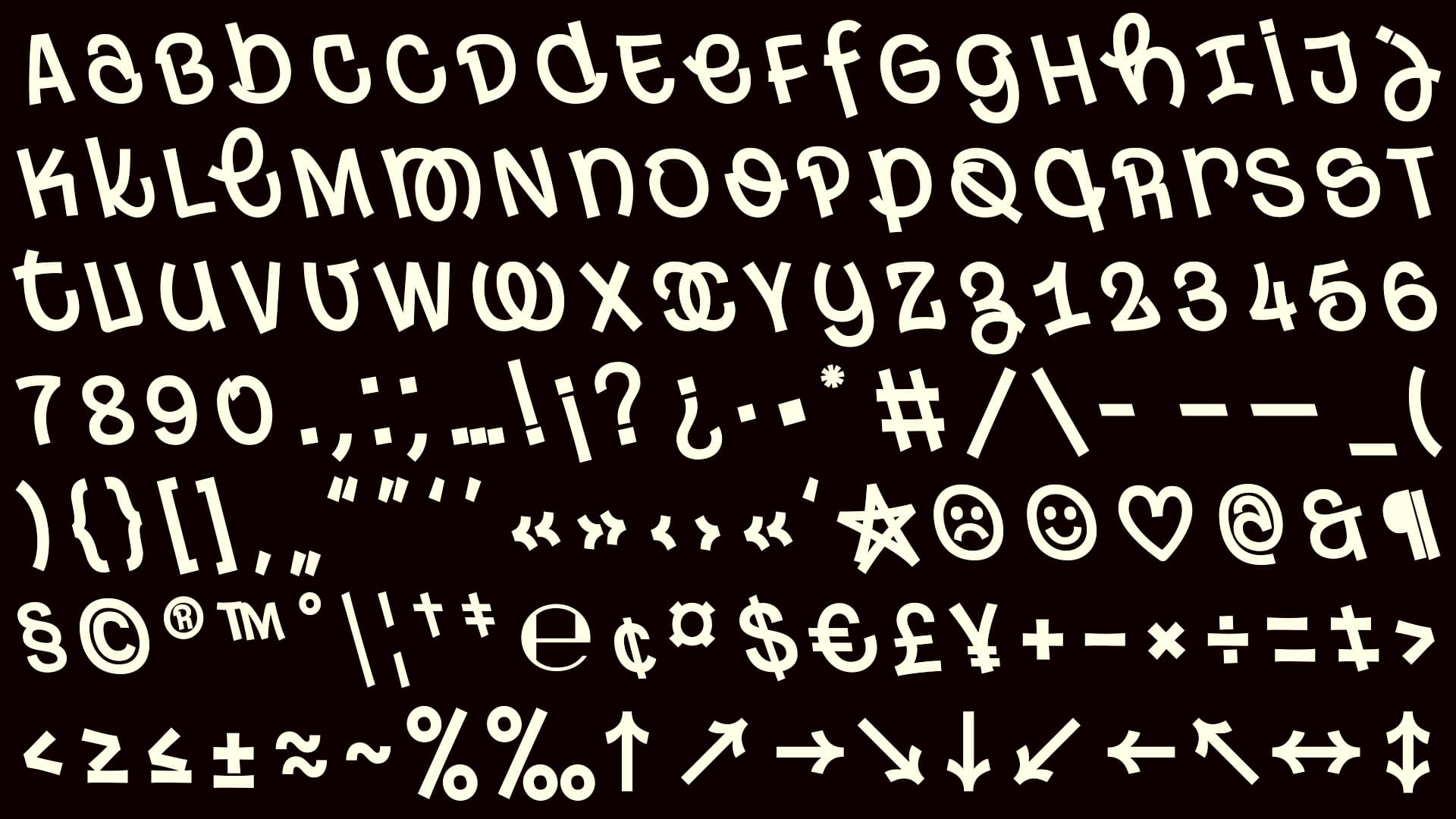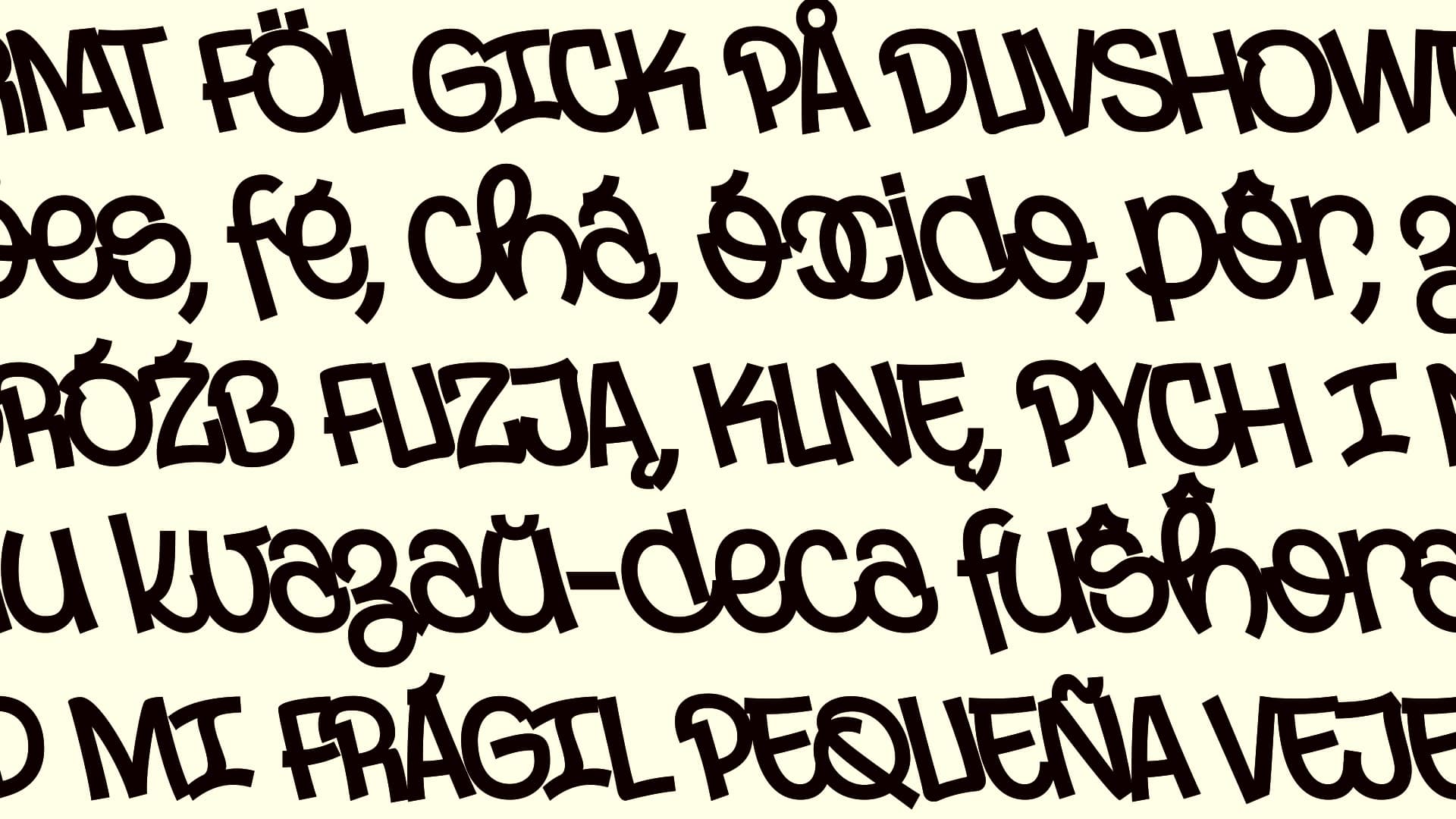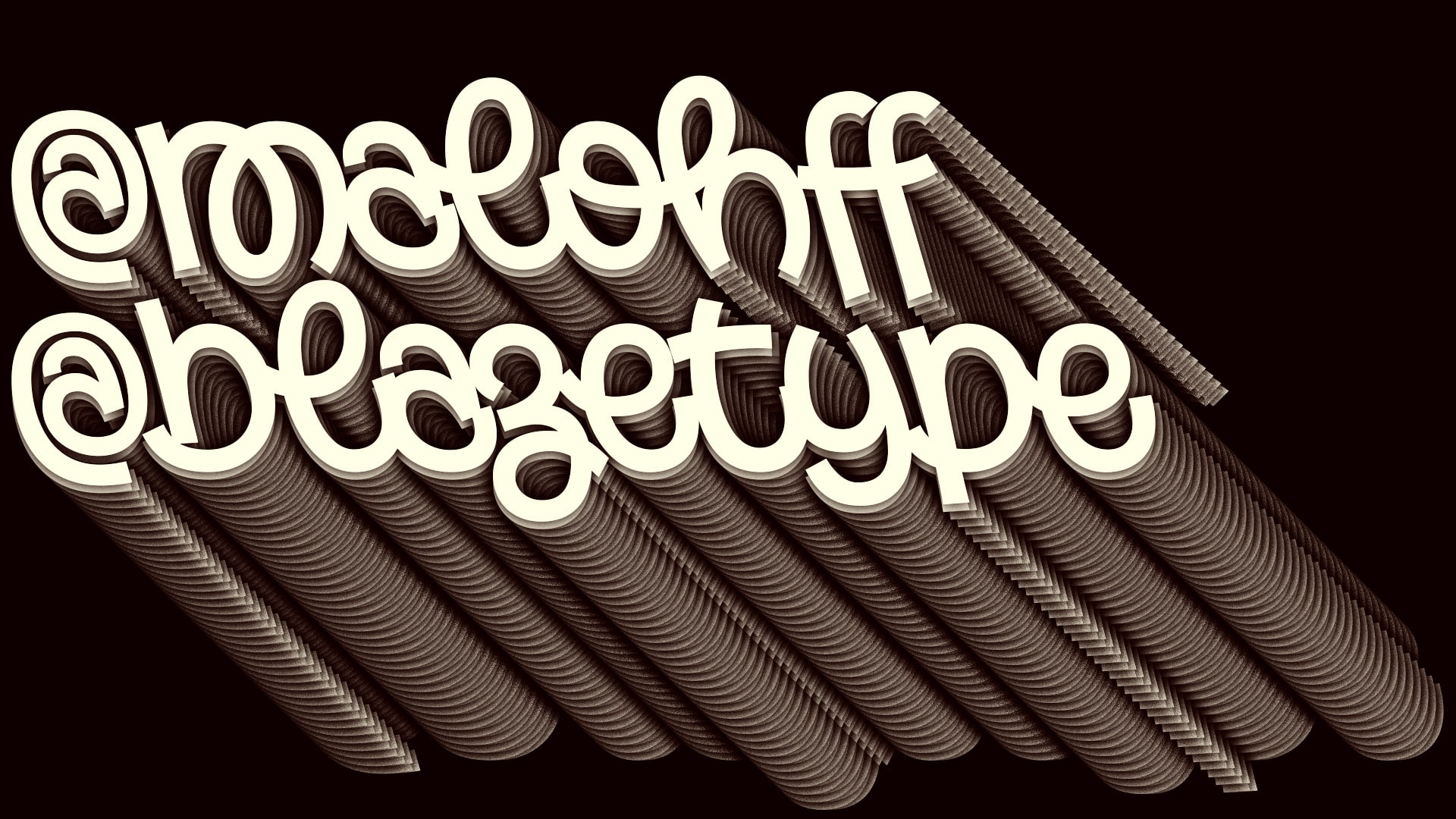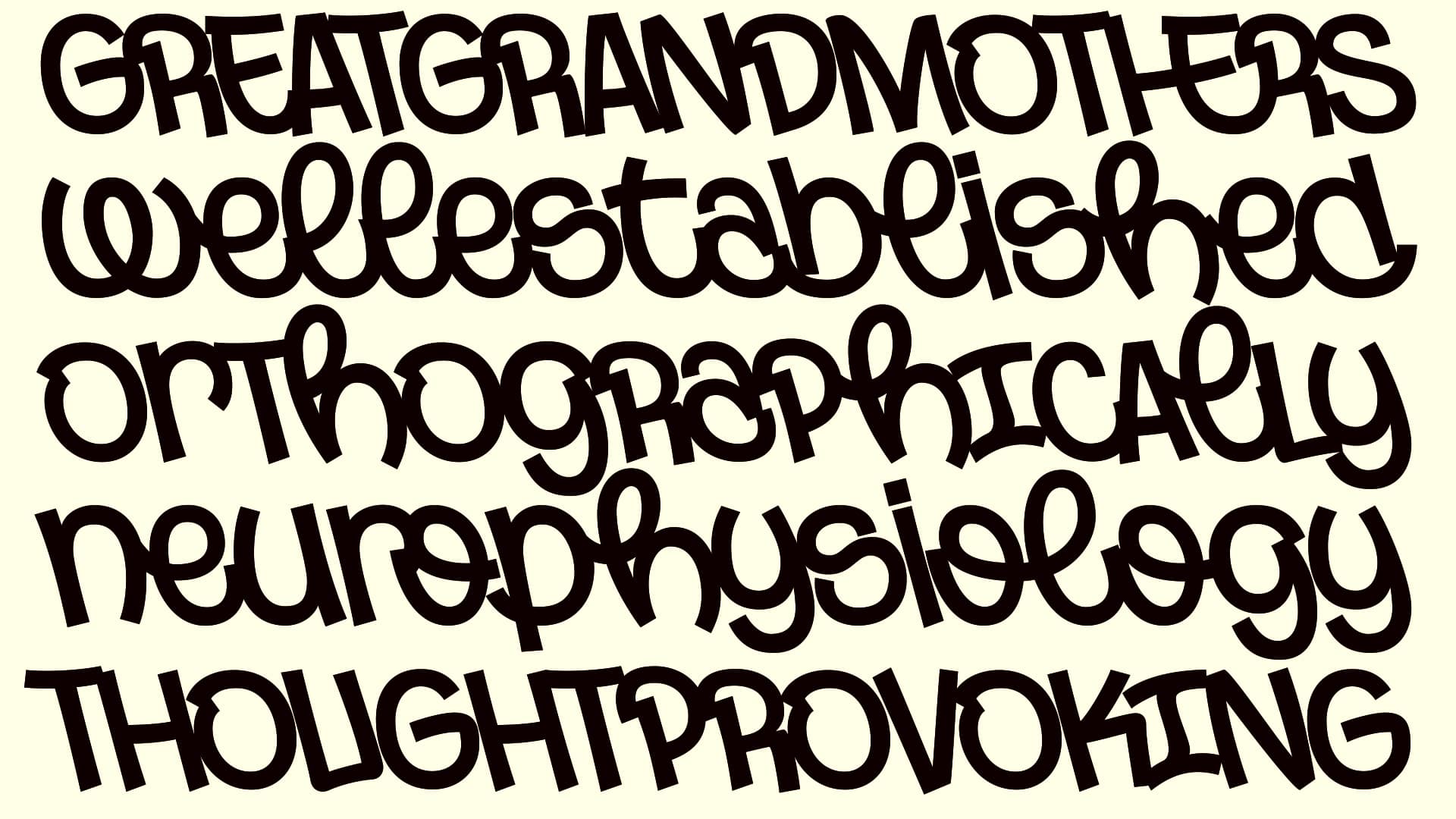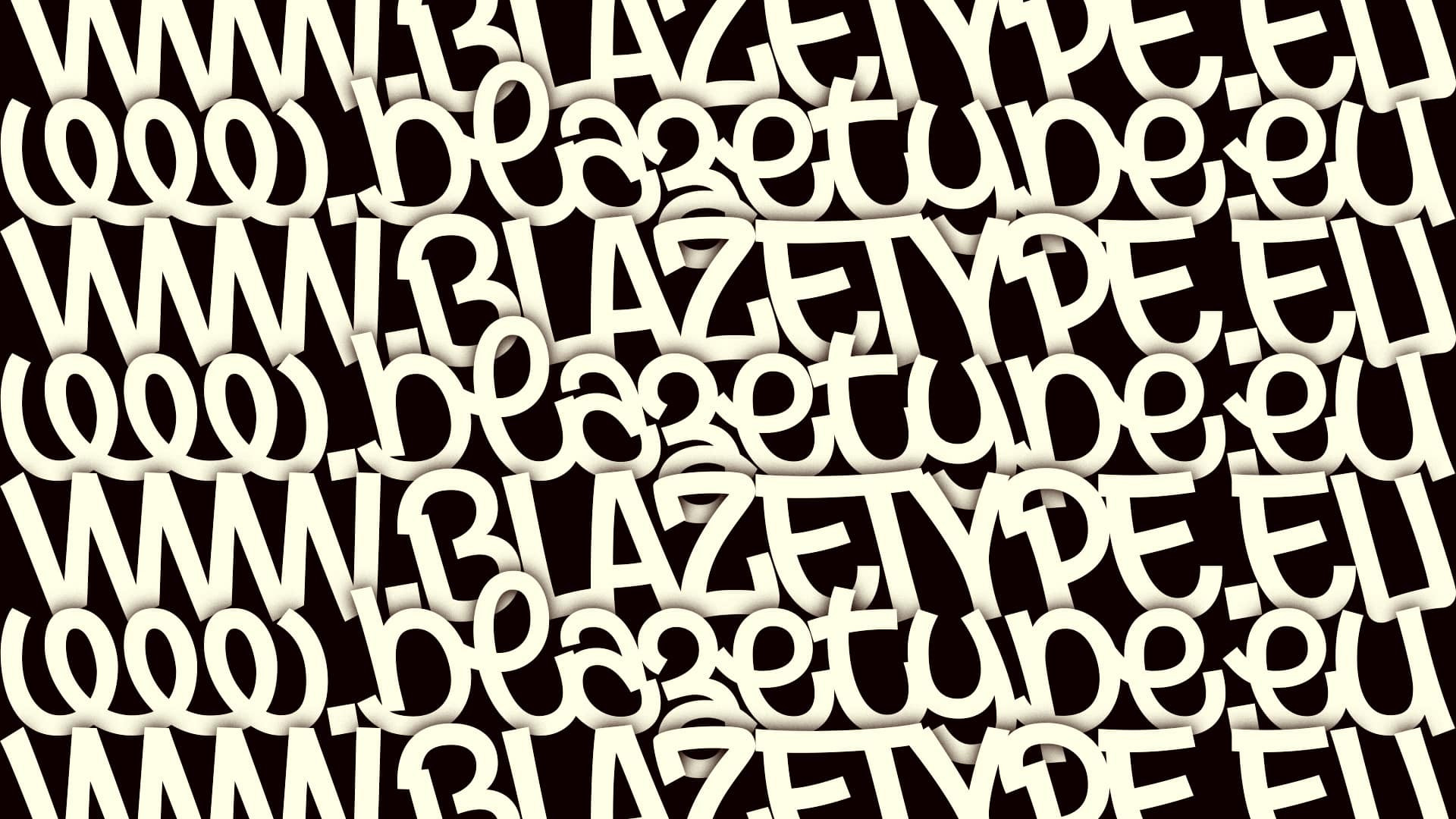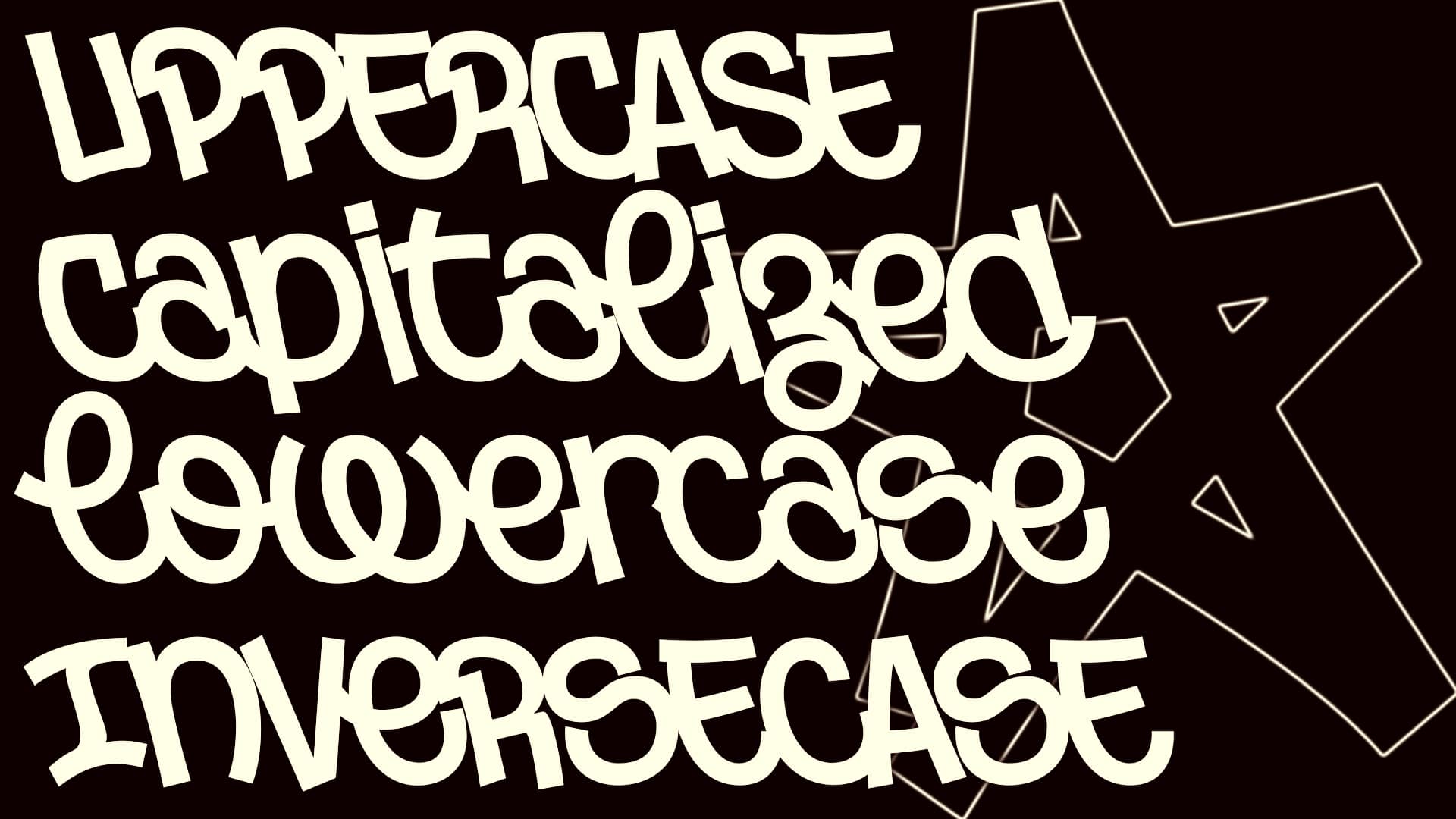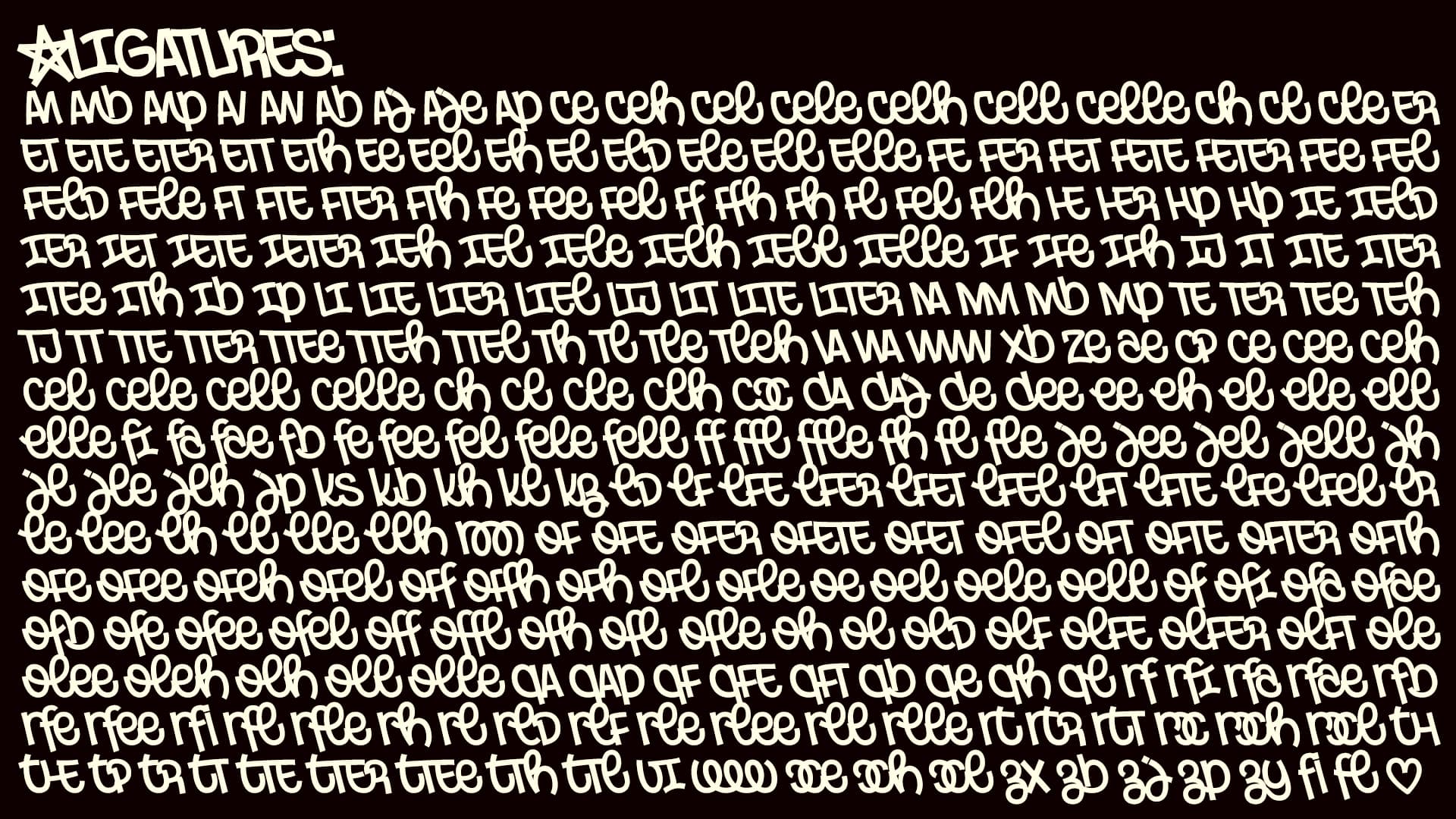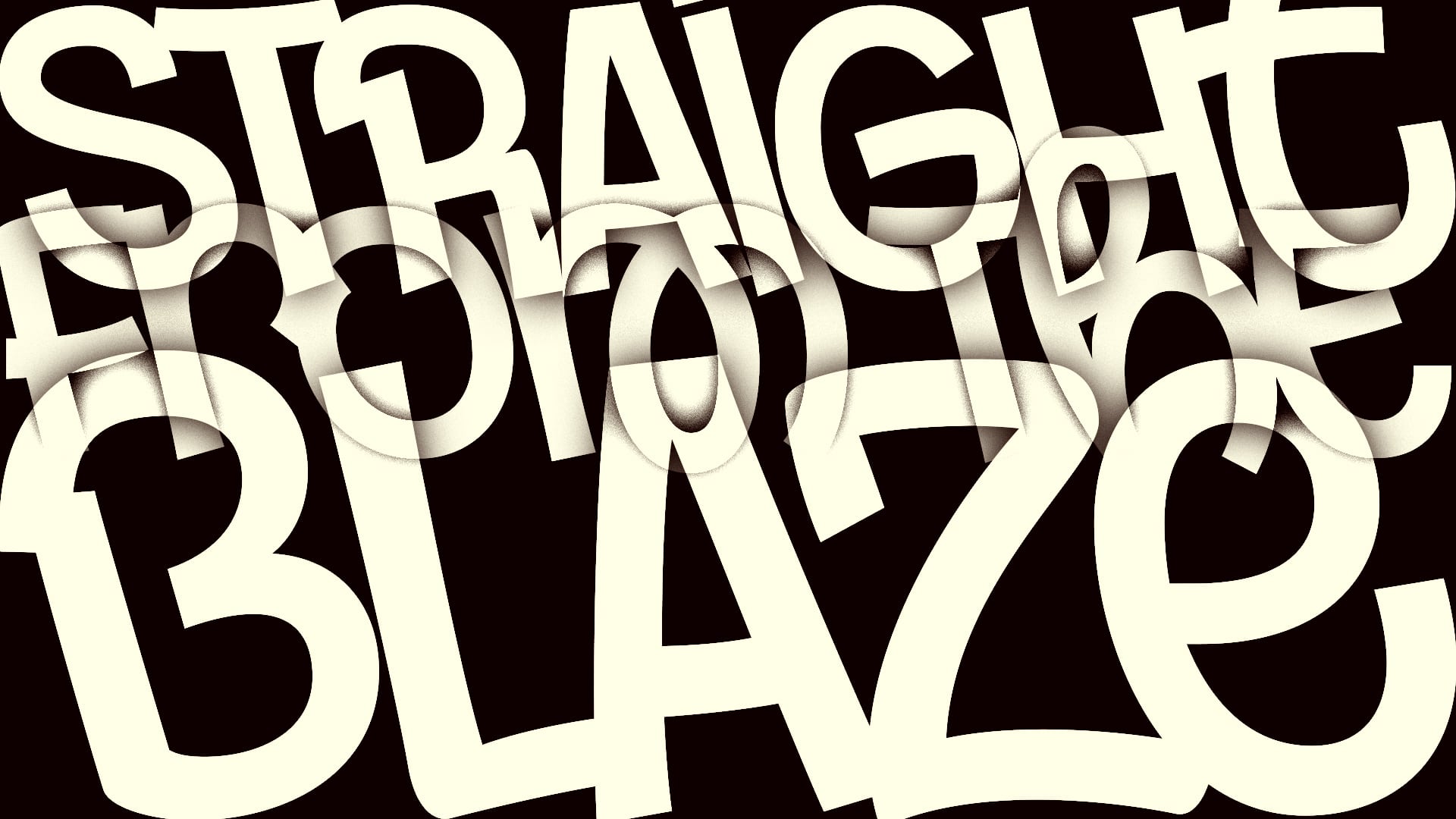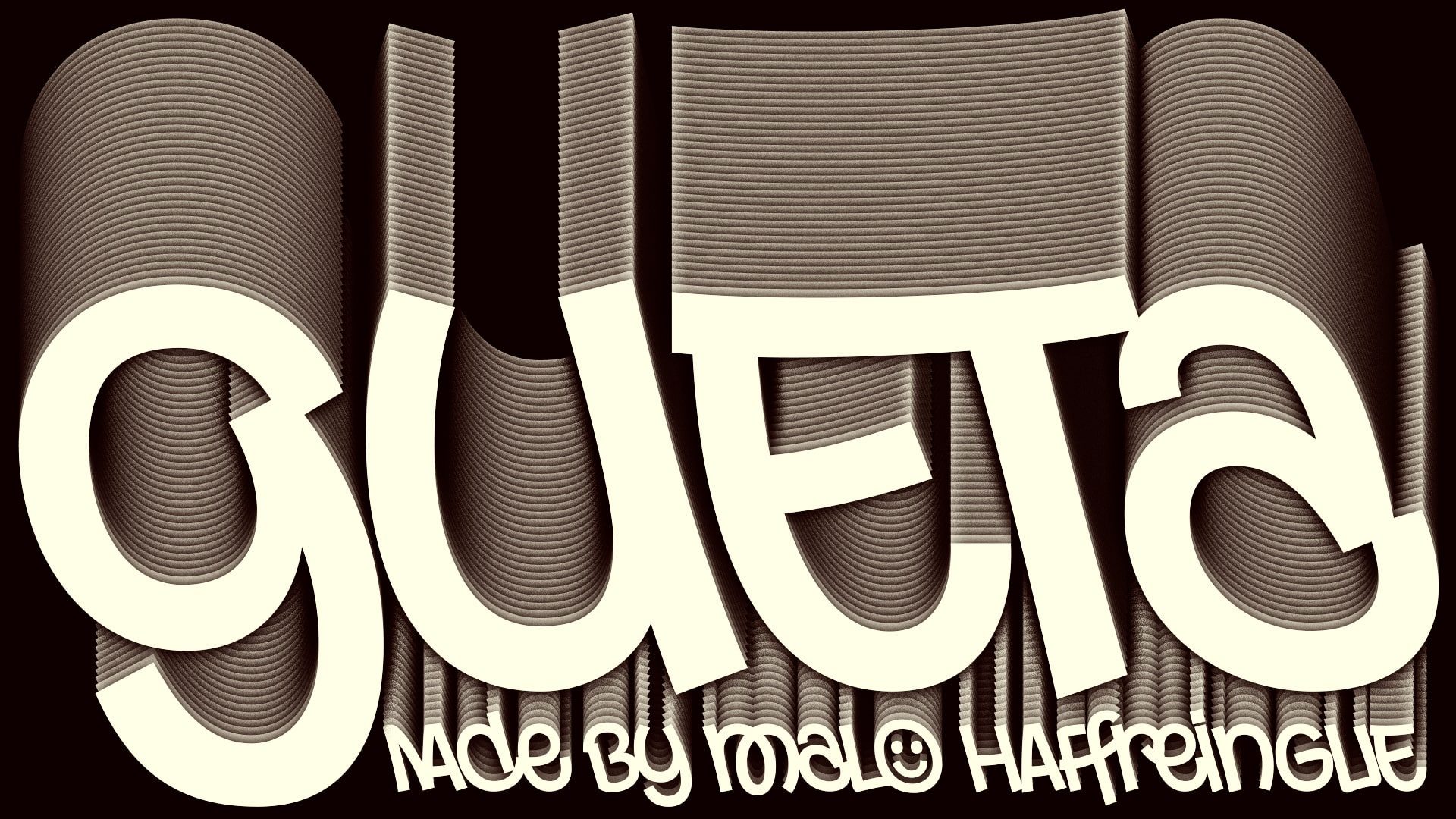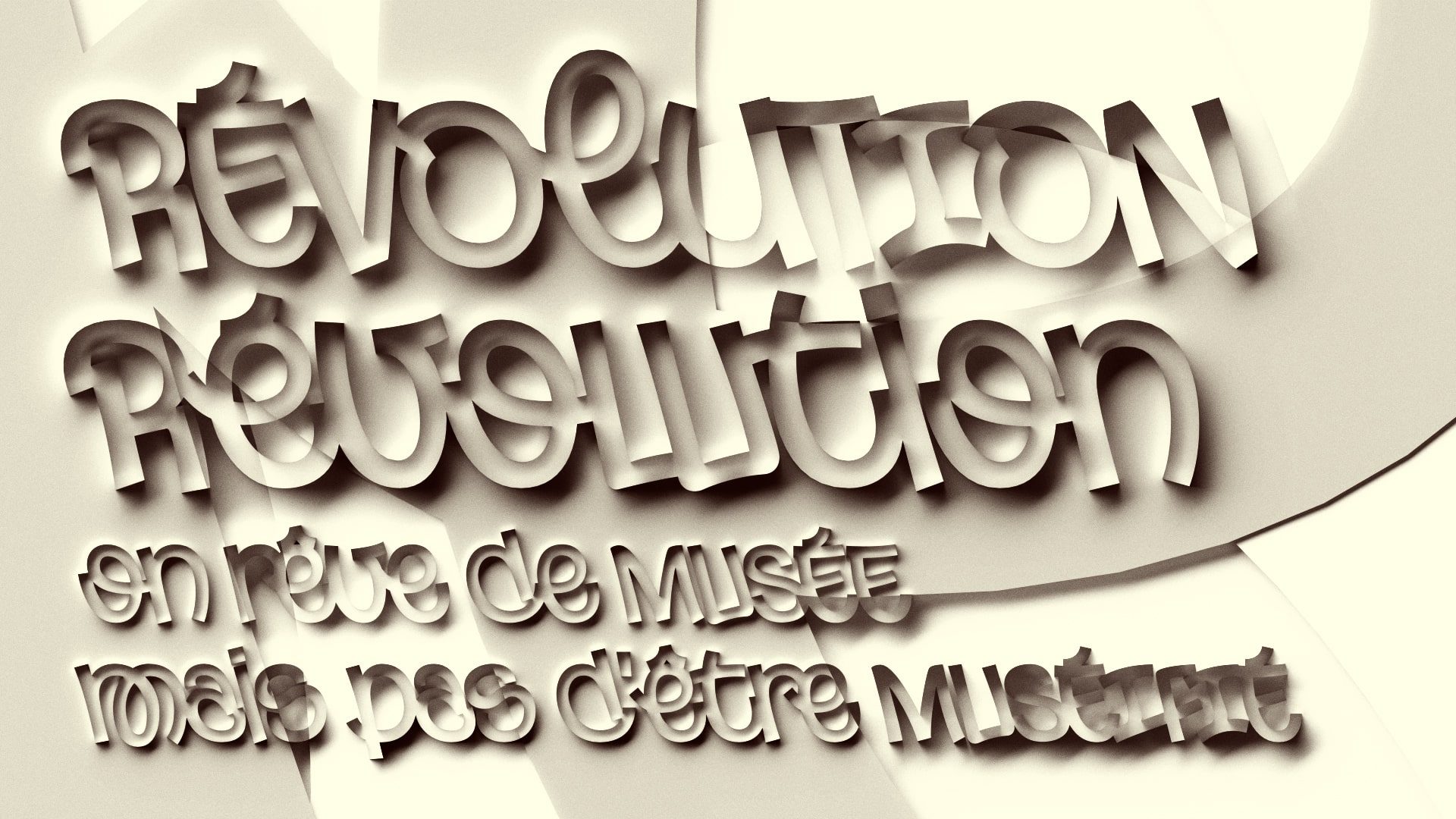
Gueta
Discover Gueta, a backslant font that aims to embody the fusion between the art of urban writing and contemporary typographic expression.
It pays homage to the fluidity, spontaneity and singularity of tagged forms. With its exceptionally rich set of 293 ligatures, which can link up to 5 letters at the same time, Gueta offers a unique typographic experience, where shapes connect with dynamic force. Whatever the purpose may be, from striking posters to impressive graphics or memorable headlines, this display typeface propels its expressive power, conferring a dynamic, contemporary typographic presence that won't go unnoticed.